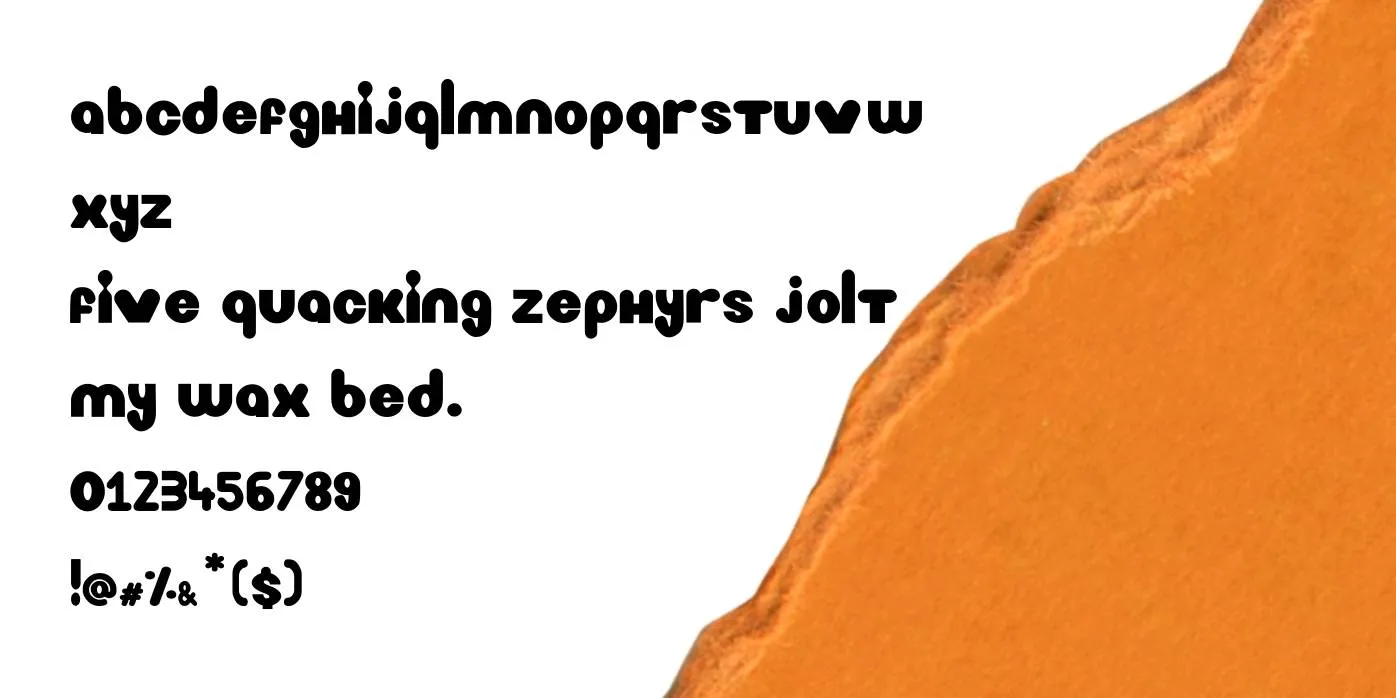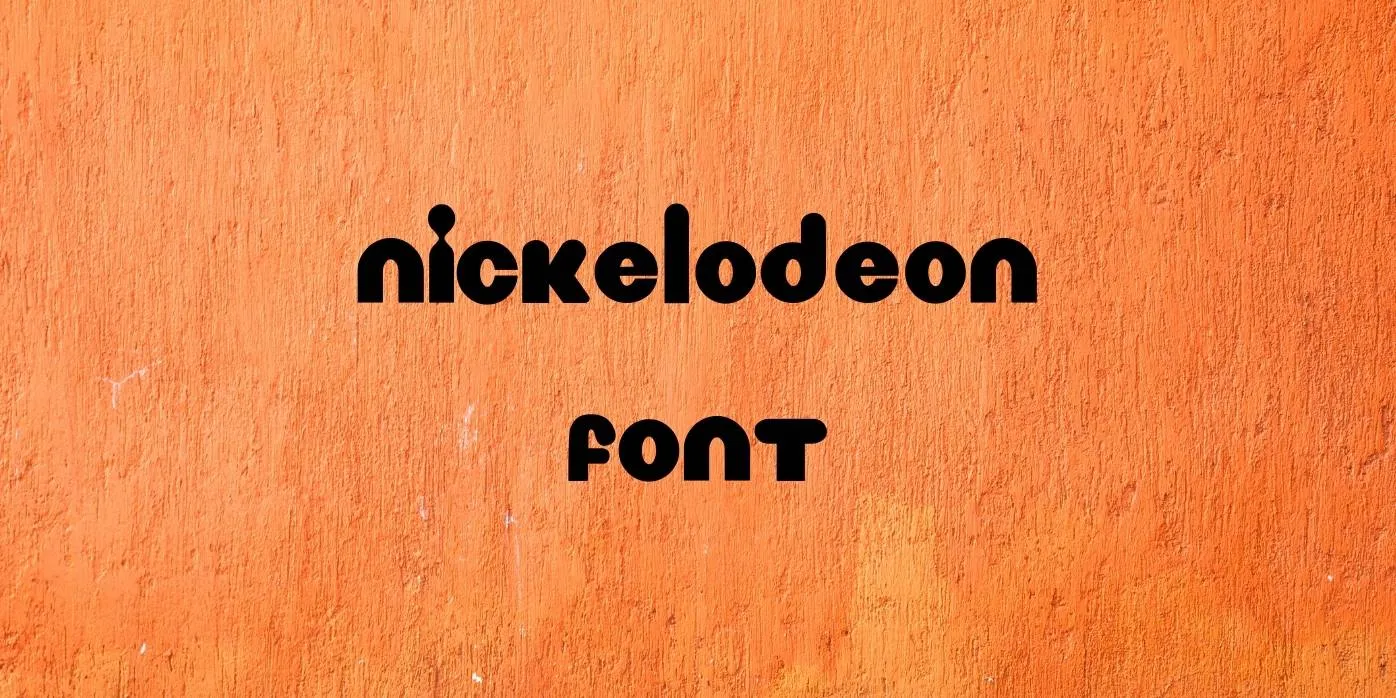
Nickelodeon Font
Nickelodeon font is the font that is used in the famous TV channel as Name logo “Nickelodeon”. This typeface belongs to a cartoon font family. And the designer of this playful font is Bryan S.O. The font family has TTF features and one of the great things about this typeface is that it has an open license that means you can use it anywhere you want in Print or digital, product & projects as well.
It has the ability to support many international languages. If we talk about its funny glyphs the font family contains Uppercase letters, playful symbols, and numbers also. Its characters provide a cartoon look to any designs as it appears in the logo of this channel.